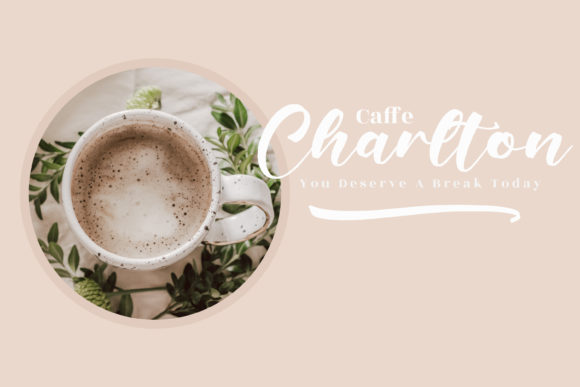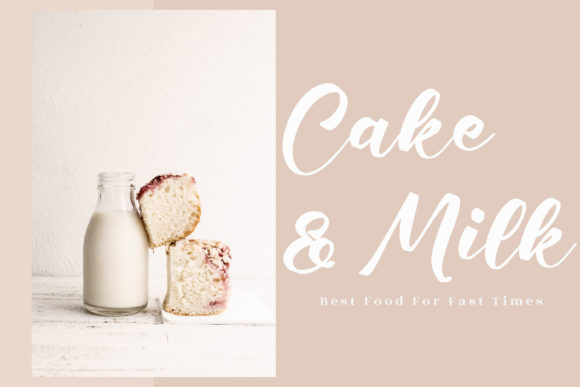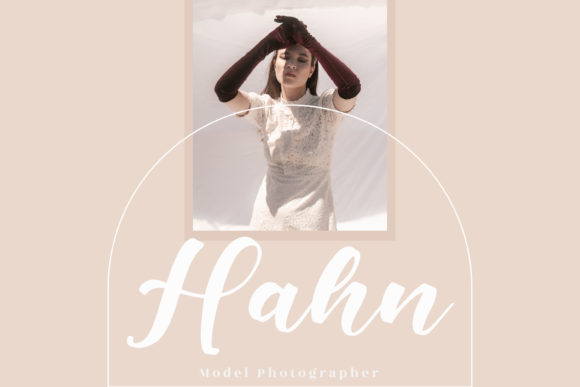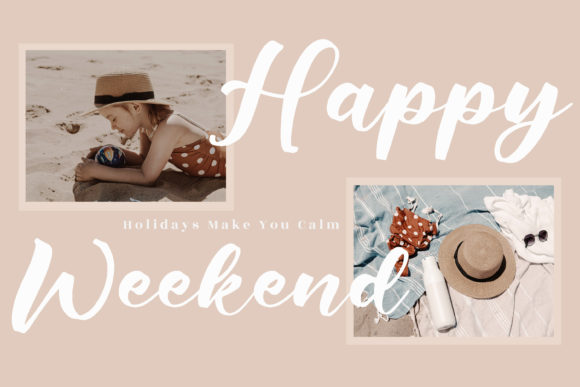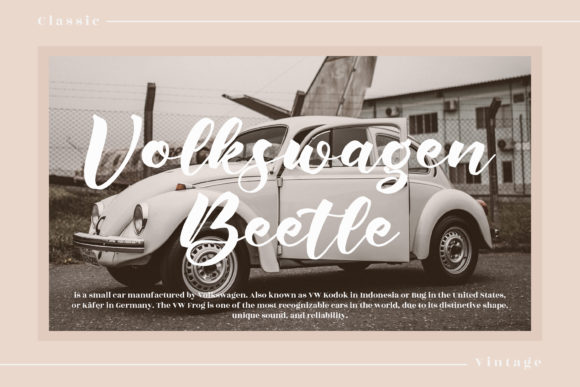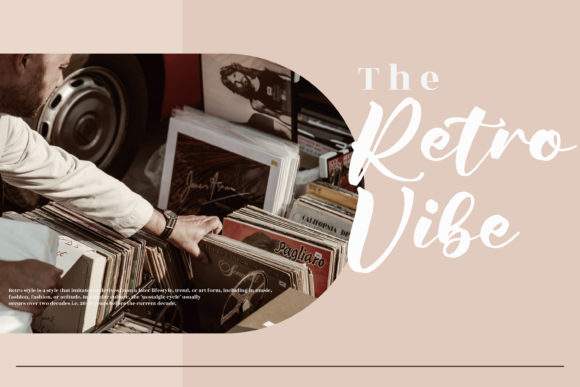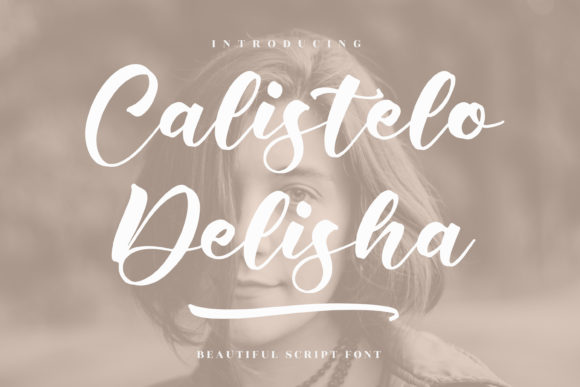
The Elusive Luxury Font: How Calistelo Delisha Stole My Heart
I still remember the design project that led me to Calistelo Delisha. I was working on a luxury brand’s branding package, and I was struggling to find the perfect font that exuded elegance and sophistication. The client was particular about the font style, and I had to deliver. After hours of scouring through font libraries, I stumbled upon Calistelo Delisha, and it was love at first sight! ✨
An Honest Review: What I Love and What I Don’t
• ✨ Delicate calligraphy style that’s perfect for luxury brands
• ✅ Characters that dance along the baseline, adding a touch of elegance
• ⚡️ PUA encoded, making it easy to access glyphs and ligatures
• 🎨 Highly versatile and can be used for various design projects, from branding to wedding invitations
The Not-So-Good Stuff
• 🤔 Limited use in body text due to its delicate nature
• ⚠️ May require some adjustments to work well with other fonts
Calistelo Delisha was designed with the intention of creating a luxurious and elegant font that would add a touch of sophistication to any design project. The designer aimed to create a font that would dance along the baseline, creating a sense of movement and fluidity. The result is a beautiful calligraphy font that’s perfect for luxury brands, wedding invitations, and high-end designs.
Q: What is PUA encoding, and how does it benefit Calistelo Delisha?
A: PUA (Private Use Area) encoding allows designers to access glyphs and ligatures easily, making it convenient to use the font in various design projects.
Q: Is Calistelo Delisha suitable for body text?
A: While Calistelo Delisha is a beautiful font, it’s not ideal for body text due to its delicate nature. It’s best used for headlines, titles, and short paragraphs.